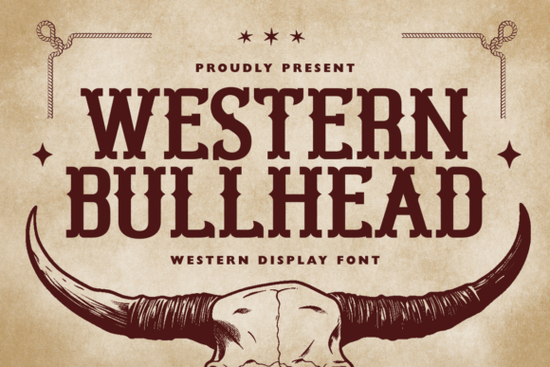
The Western Bullhead font is a display typeface built for designers who want that unmistakable blend of vintage western character and retro energy. If you're working on t-shirt designs, logo concepts, signage, or laser-cut projects, this font brings a bold, hand-crafted look that stands out without trying too hard. It draws from old Americana style think weathered saloon signs and classic rodeo posters and translates that feel into something you can use on modern print and digital projects.
What Makes the Western Bullhead Font a Good Pick for Display Projects?
Not every decorative font works well at large sizes. Some lose their detail, and others look too busy. The Western Bullhead Font was designed specifically as a display typeface, which means it's built to look its best at bigger sizes on posters, banners, apparel, and packaging. The letterforms have strong silhouettes and clear vintage detailing that hold up whether you're printing on a coffee mug or cutting a design from wood or acrylic.
Here's where it fits naturally:
- T-shirt and apparel graphics especially western, retro, or Americana-themed collections
- Quotes and typography posters that need a bold, dramatic headline
- Logo design for brands with a rustic or heritage vibe
- Laser-cut signage and labels where clean, defined edges matter
- Mugs, stickers, and print-on-demand products that need a standout header font
Who Is This Font Best Suited For?
This typeface works well for a range of creatives. If you run a print-on-demand shop and you're building western-themed product lines, it's a natural fit. Small business owners creating labels, packaging, or storefront signage will find it useful too. Crafters who use Cricut or laser cutters often need fonts with bold, clean outlines and this one delivers on that front.
It's also a solid choice for designers who want variety in their font library without collecting dozens of similar typefaces. You can pair it with simpler sans-serifs for body text, or use it alongside other display fonts for layered, textured compositions. If you like mixing styles, a font like Shadow Block creates an interesting contrast when paired next to something with western flair.
How Does It Compare to Other Display Fonts?
Display fonts cover a wide range of styles from playful and rounded to sharp and industrial. The Western Bullhead leans into a vintage western aesthetic, which sets it apart from more modern or geometric options. For example, Bubble Mood Font takes a completely different approach with its soft, rounded letterforms that feel fun and casual.
Meanwhile, Cartius offers a more elegant and classical display style, which suits formal branding or editorial layouts. And if you're after something with a playful hand-drawn personality, PN Lila Sits FN Font brings a lighthearted, quirky energy to creative projects.
Each of these fonts fills a different design need. The Western Bullhead is specifically about that bold, old-west nostalgia it doesn't try to be everything, and that's exactly why it works so well for the right project.
What Design Styles Pair Well with Western Aesthetic Fonts?
Fonts like this one tend to look best when the overall design supports the theme. A few approaches that work naturally:
- Distressed textures worn wood grain, faded ink, or grunge overlays complement the vintage feel
- Earthy color palettes browns, deep reds, cream, burnt orange, and charcoal
- Illustrated elements horseshoes, longhorn skulls, cacti, desert landscapes
- Layered typography combining the display font with a simple script or sans-serif for balance
These combinations help the font feel like part of a cohesive design rather than something pasted on top. Whether you're building a t-shirt mockup or designing a rustic wedding invitation, the supporting visuals matter just as much as the typeface choice.